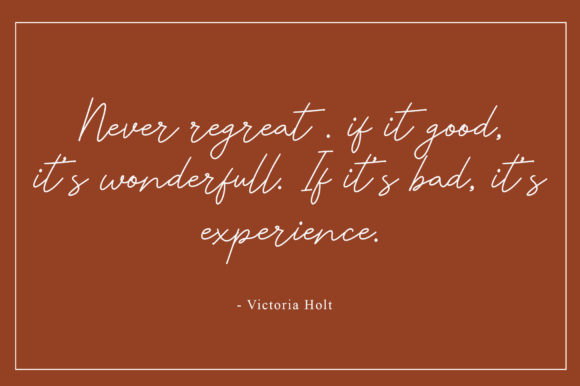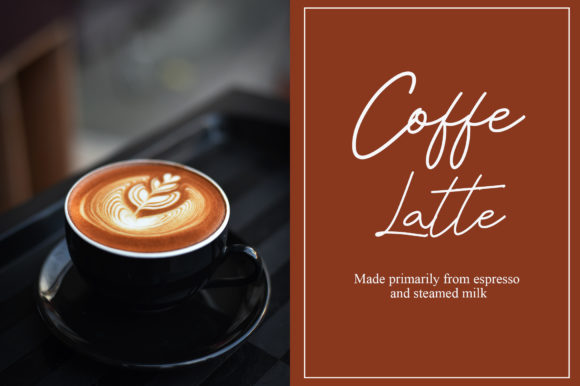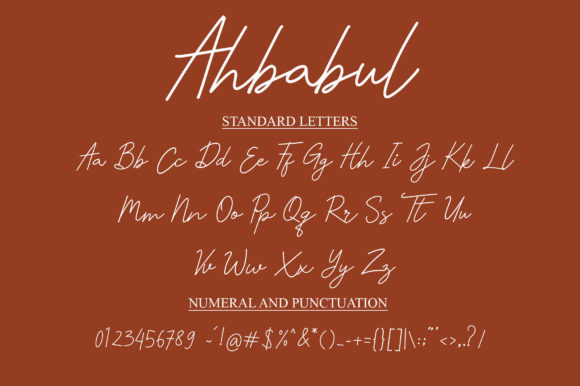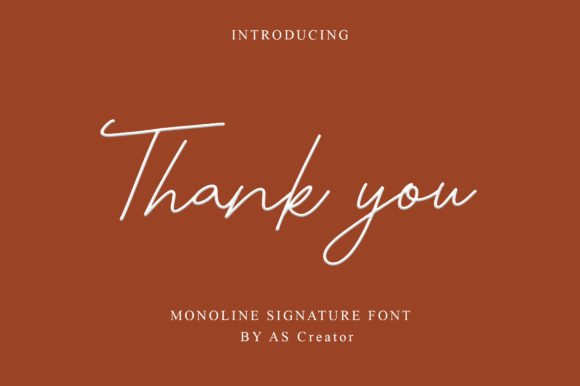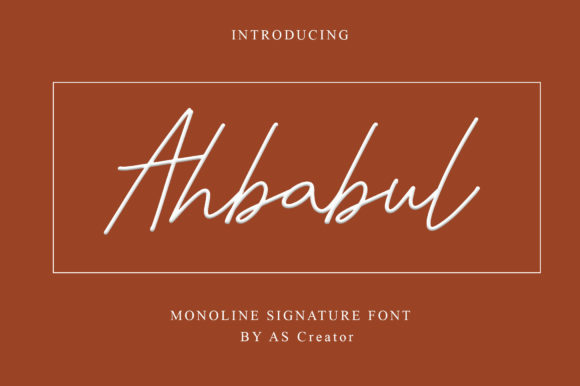
Falling in Love with Ahbabul Font: A Designer’s Dream
I still remember the design project that led me to discover Ahbabul Font. I was working on a wedding invitation for a client’s special day, and I was struggling to find the perfect font that would capture the elegance and romance of the occasion. The client had a clear vision of what they wanted – a beautiful, flowing script that would make their guests feel like they were in for a treat. After hours of searching, I stumbled upon Ahbabul Font, and it was love at first sight! 💕
An Honest Review of Ahbabul Font
• ✨ Sweet and flowing letterforms that exude elegance and sophistication
• ✅ Incredibly versatile style that works well for various design projects, from wedding invitations to social media posts
• 💫 Beautifully crafted to add a touch of romance and whimsy to any design
• 📚 Extensive character set, including support for multiple languages
• 🤔 Some users may find the font a bit too thin for certain design applications, such as body text or captions
• ⚠️ Limited availability of bold or heavy weights, which may limit its use in certain design contexts
3. Experiment with OpenType features, such as ligatures and stylistic alternates, to add more flair to your design
The Backstory of Ahbabul Font
Ahbabul Font was designed with the intention of creating a beautiful and elegant script font that would capture the romance and whimsy of the Arabic language. The font’s creator was inspired by the intricate calligraphy and flowing letterforms found in traditional Arabic art. The result is a font that’s both beautiful and functional, making it perfect for a wide range of design applications.
Font Name Ahbabul Font
Author Gagegostyle
Q: What is Ahbabul Font?
A: Ahbabul Font is a sweet, flowing, and thin lettered script font that’s perfect for creating beautiful wedding invitations, stationary art, social media posts, and more.
Q: Is Ahbabul Font suitable for body text?
A: While Ahbabul Font is beautiful and elegant, it may not be the best choice for body text due to its thin letterforms. However, it works well for headings, titles, and other display text.